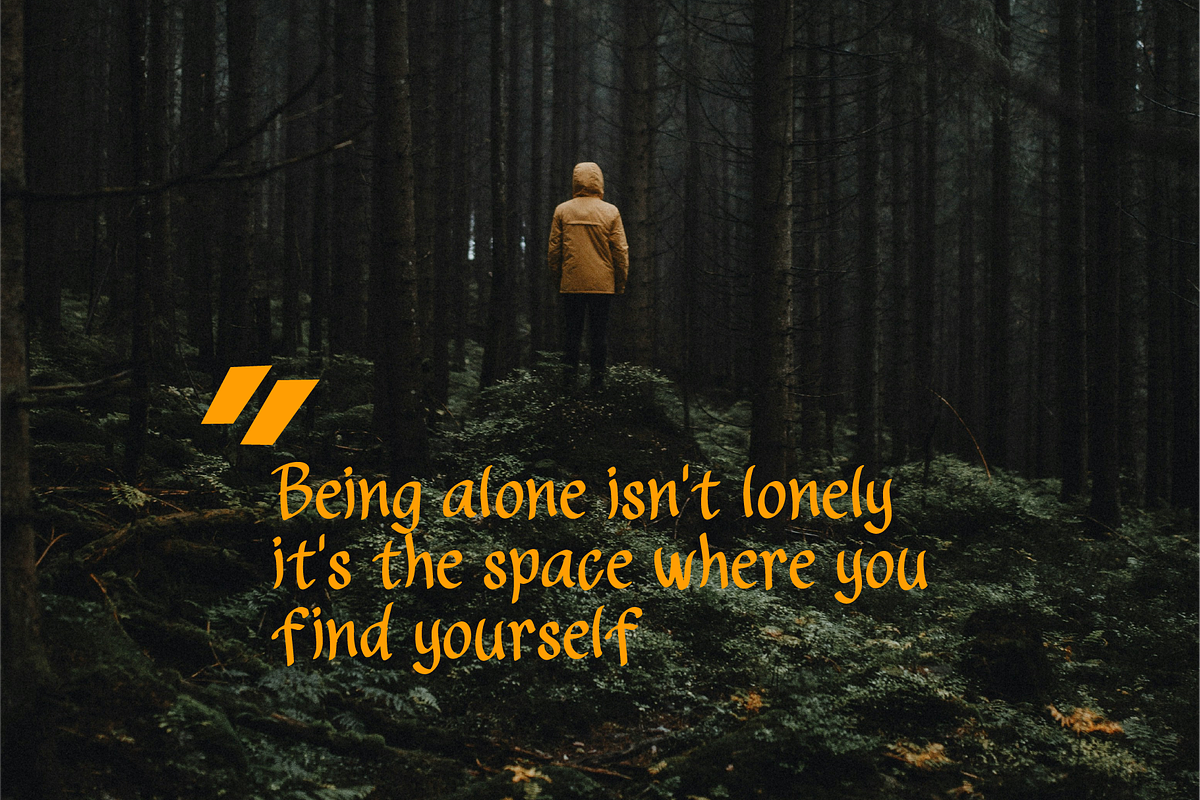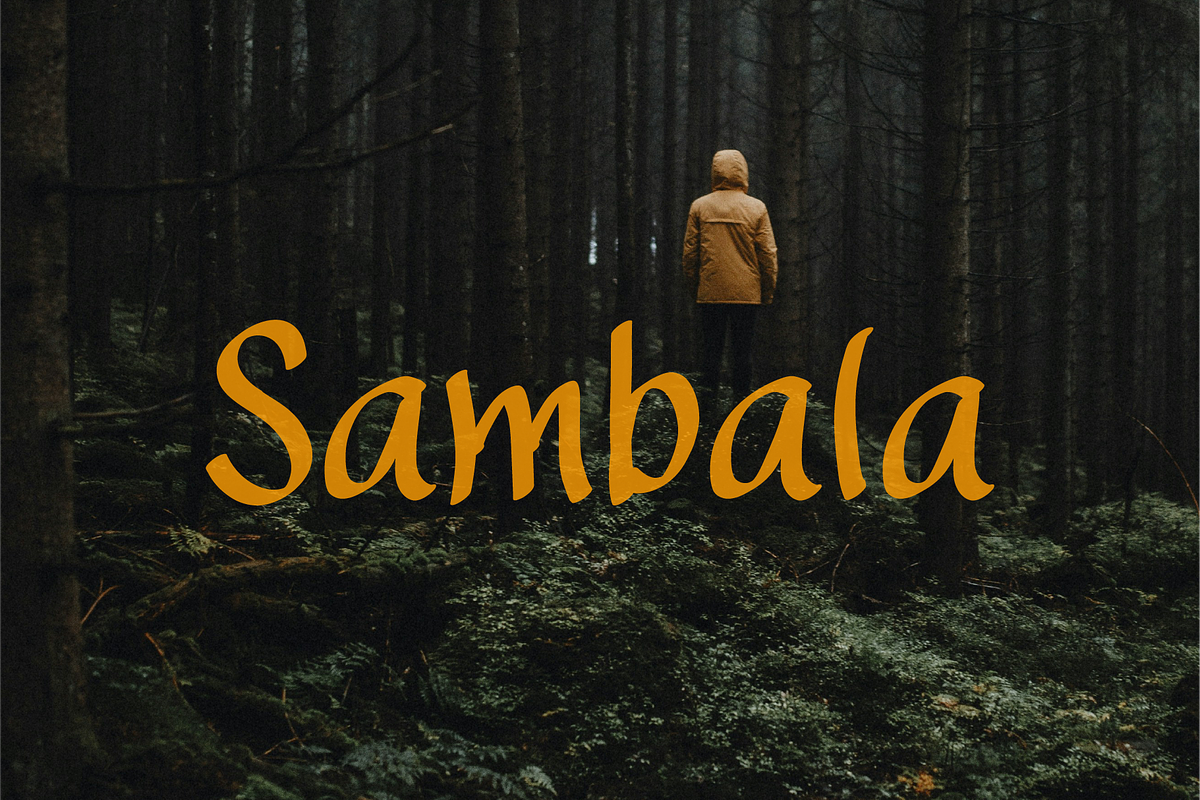
Sambala
This font is presented with a unique and natural style, featuring beautiful, random strokes. The Sambada font goes beyond ordinary scripts, offering a perfect touch of uniqueness for contemporary design projects.